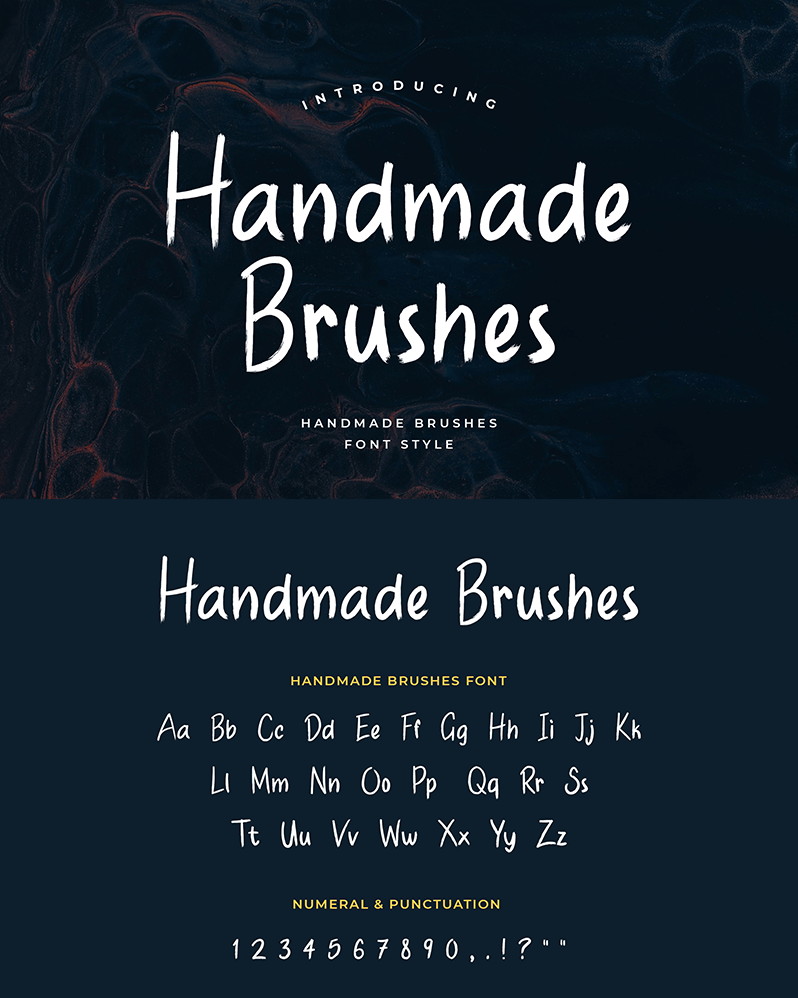
Font name: | Handmade Brushes |
Handmade Brushes is a type of brush font, which accentuates the characteristics of natural and beautiful contemporary handwriting. Having a constant high and low font and a strong stroke brush effect make this font look smooth, clear, and firm. It is suitable for various projects and branding, such as for prints, logos, quotes, badges, labels, packaging designs, blogs, websites, designs, headlines, banners, posters, prints, T-shirts, magazines, etc. You can buy full license from our store for more our fonts: https://uicreative.net/products/fonts-handmade-brushes |